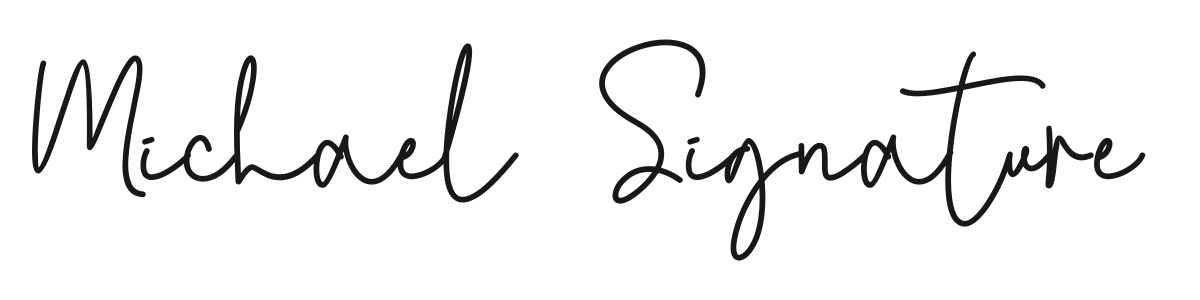
Michael Signature
Michael Signature is a flowing casual script modeled after natural handwriting, with long looping connectors and a thin, relaxed stroke. It carries the feel of a real pen signature without the formal stiffness of traditional calligraphy. Works well at large display sizes for logos, invitations, and lifestyle branding.